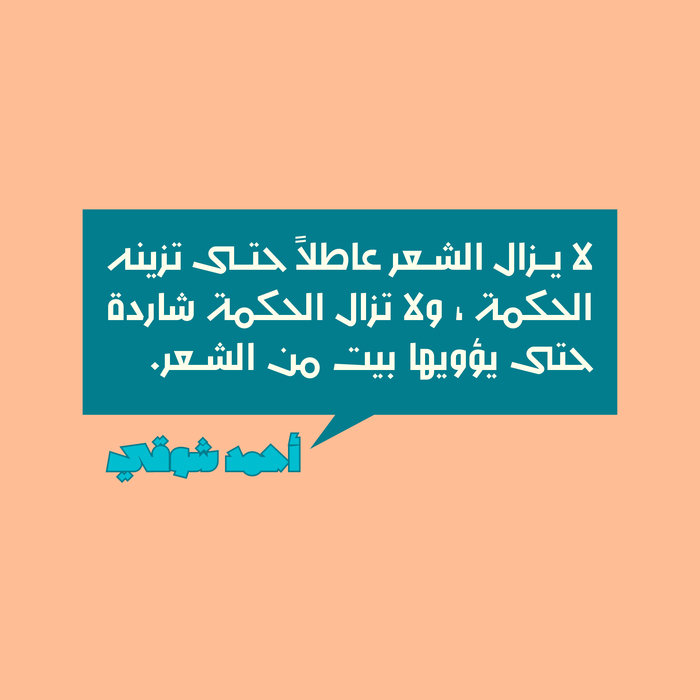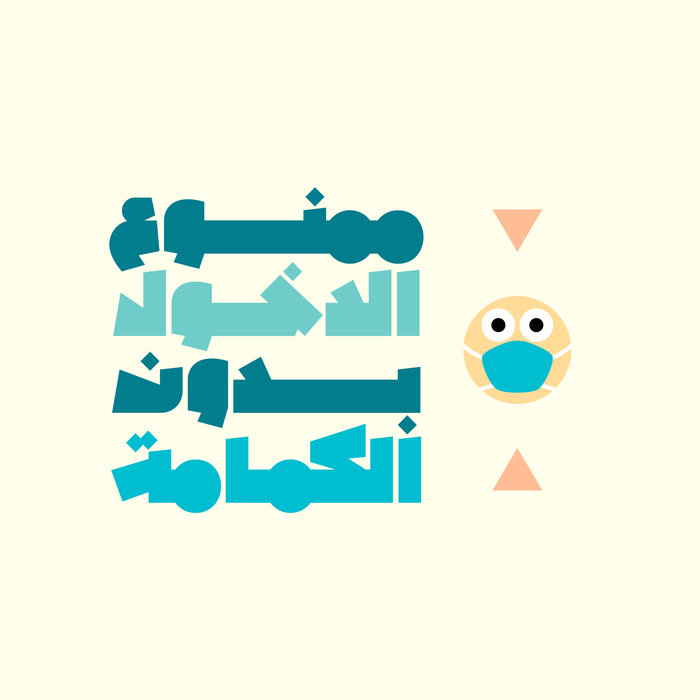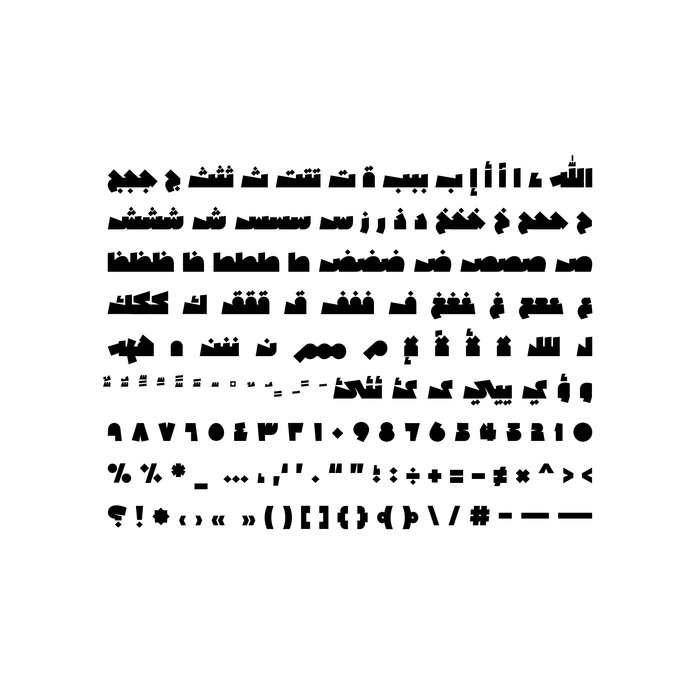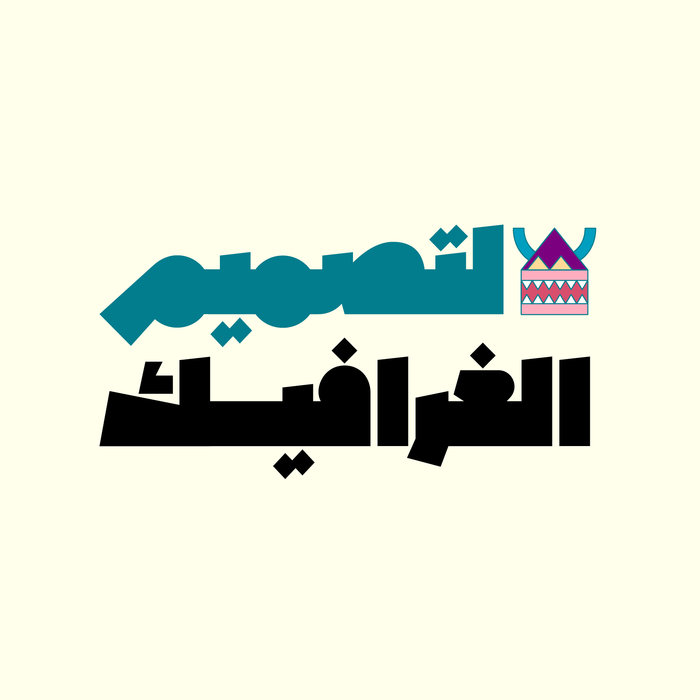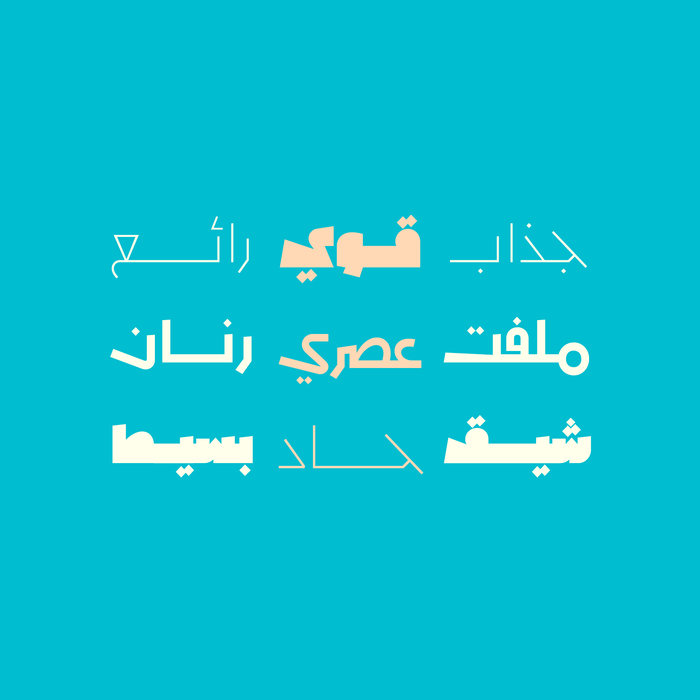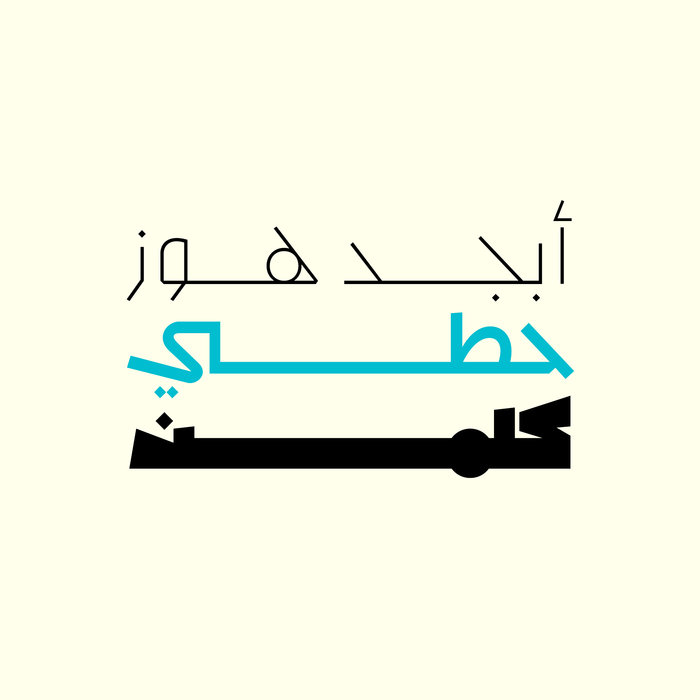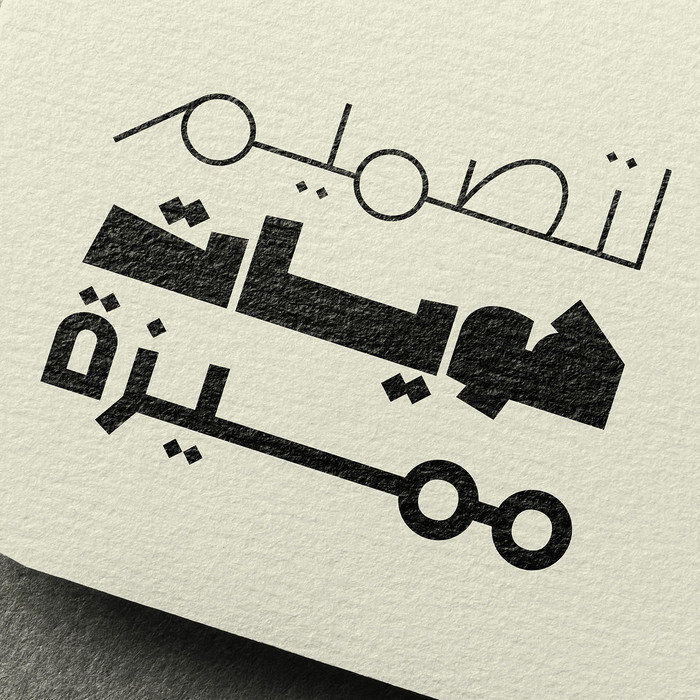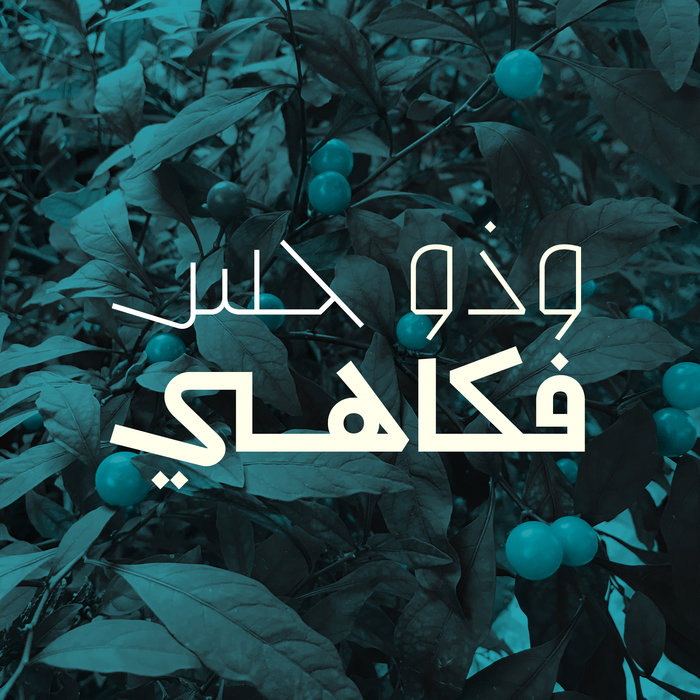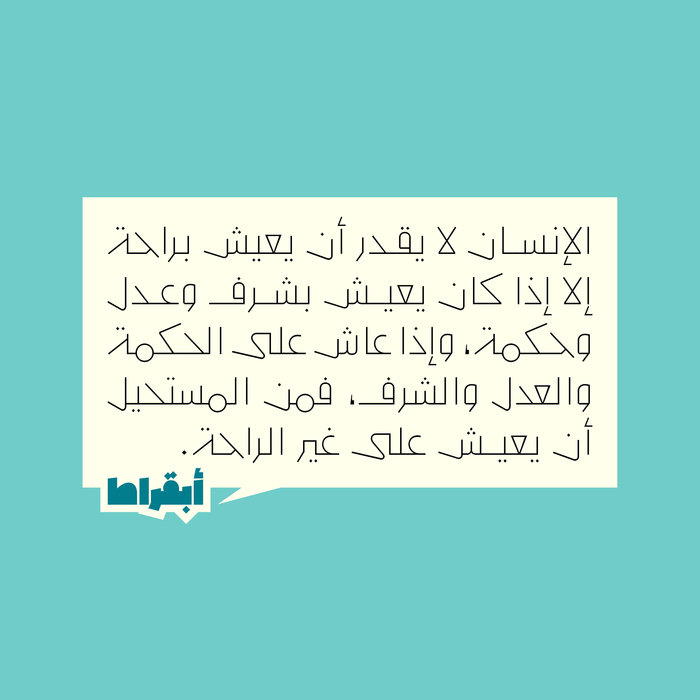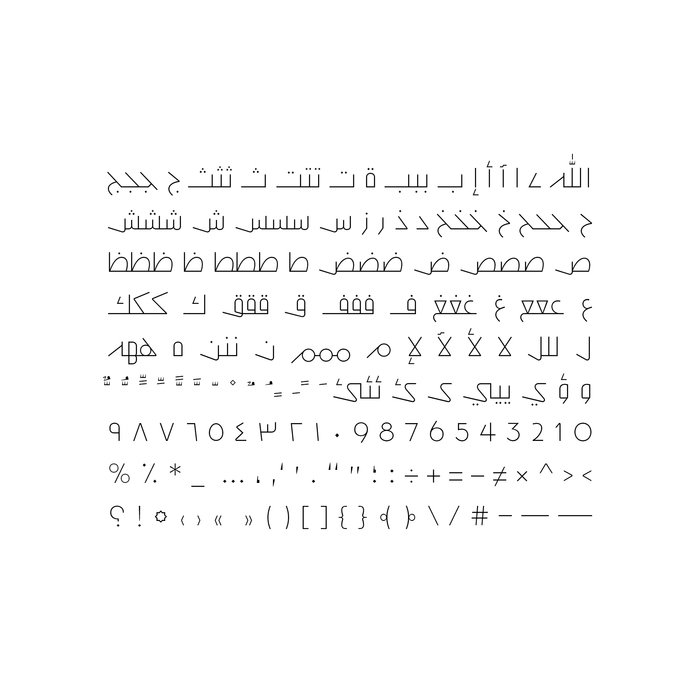
Mahbook - Arabic Font
Mahbook (the Arabic word for 'Plotted') is an Arabic display font that features contemporary letterform design. Mahbook typeface consists of three weights (Thin, Normal and Fat). It is suitable for branding, advertising, publication, web design and mobile applications. Mahbook supports both Windows, Mac.